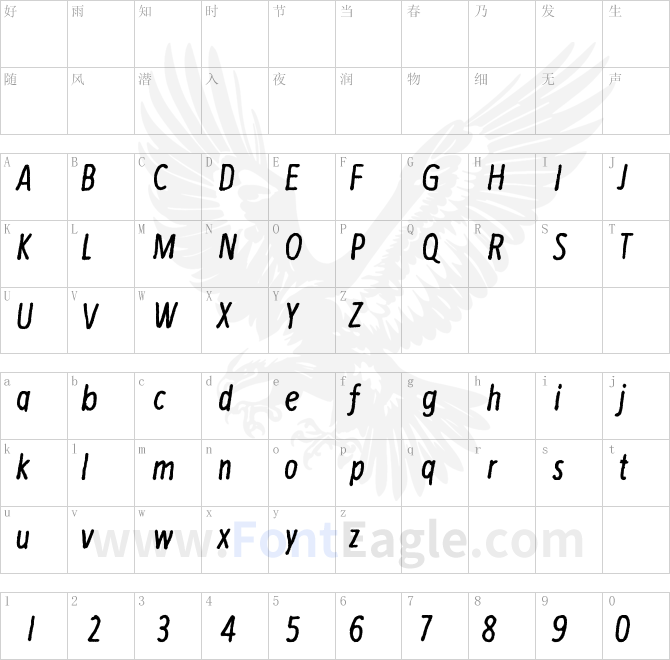
Is-there-time-in-outer-space- is a great font, widely used in graphic design, single-page menu design, poster design and other fields, and is deeply loved by designers.Is-there-time-in-outer-space- download.